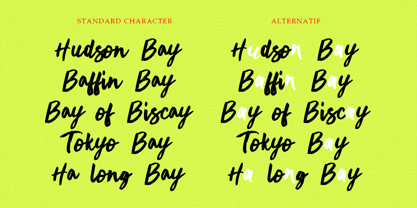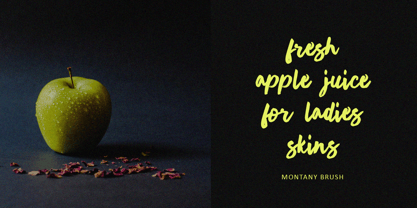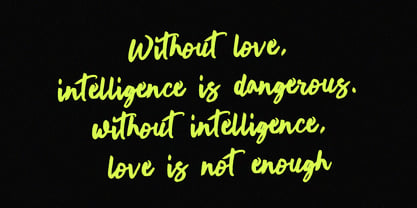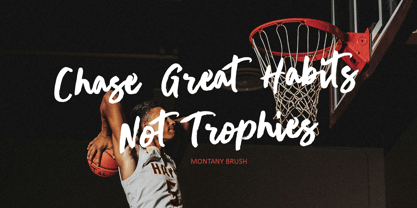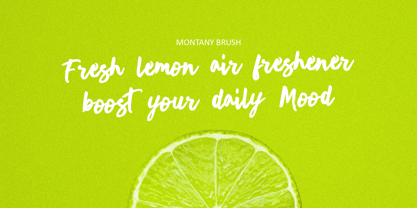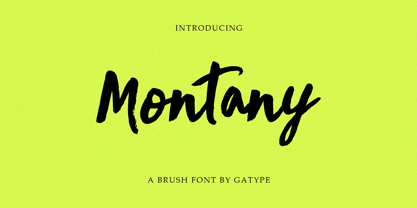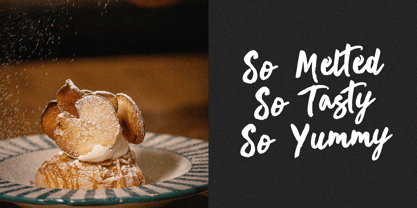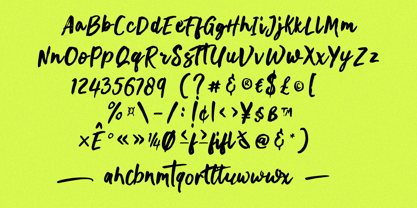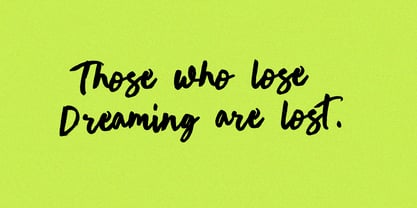
Montany Brush
by Gatype
The Montany Brush Font Family was designed by khaidir and published by Gatype. Montany Brush contains 1 styles. More about this family
Montany comes in a slightly more slanted version of the Brush Font that showcases a slightly different personality. Montay is designed to resemble the organic, slightly textured look of ballpoint pen ink, capturing the unique imperfections that make handwritten notes so personal. Montany works seamlessly together or individually, providing flexibility for creative projects where a handmade look is essential. Meet the new Montany Brush Font. A casual yet sophisticated handwriting font. \ Author Montany features a full suite of uppercase and lowercase letters, numbers, punctuation, and OpenType features like beautiful ligatures and swashes. Thank you for supporting handmade typography 💛
Designers: khaidir
Foundry: Gatype